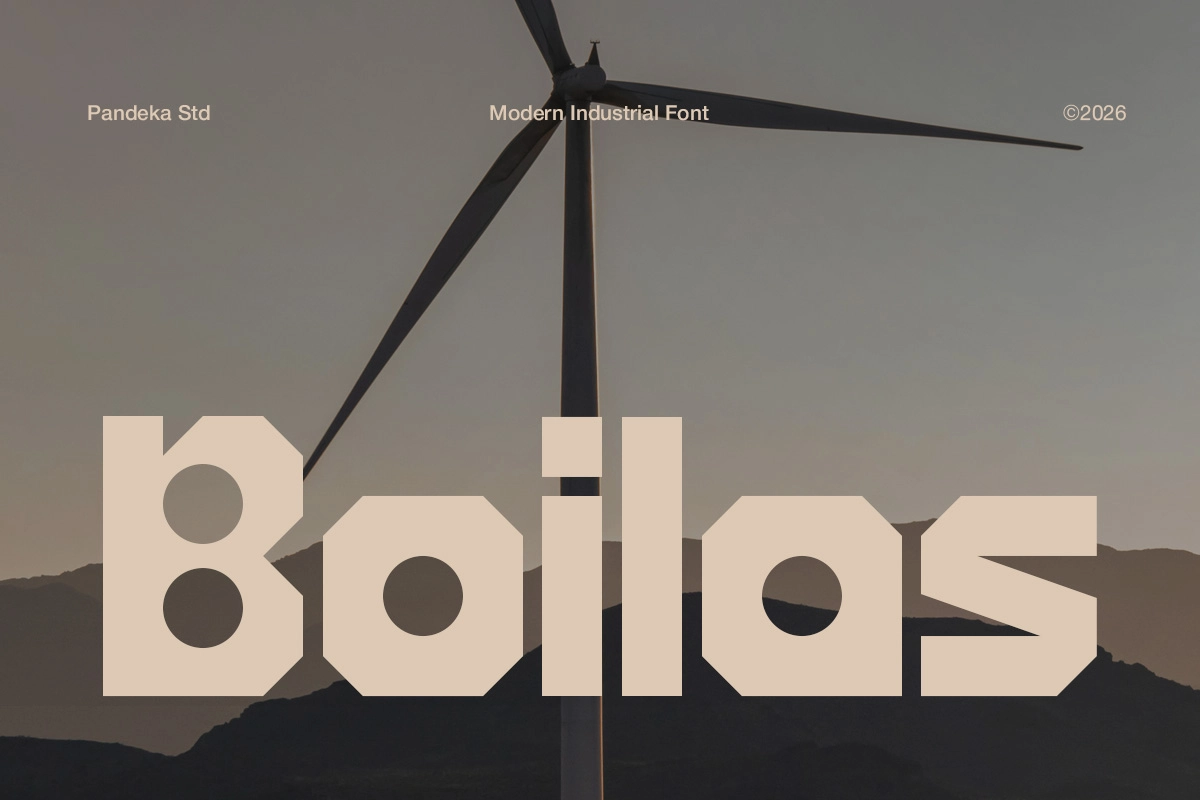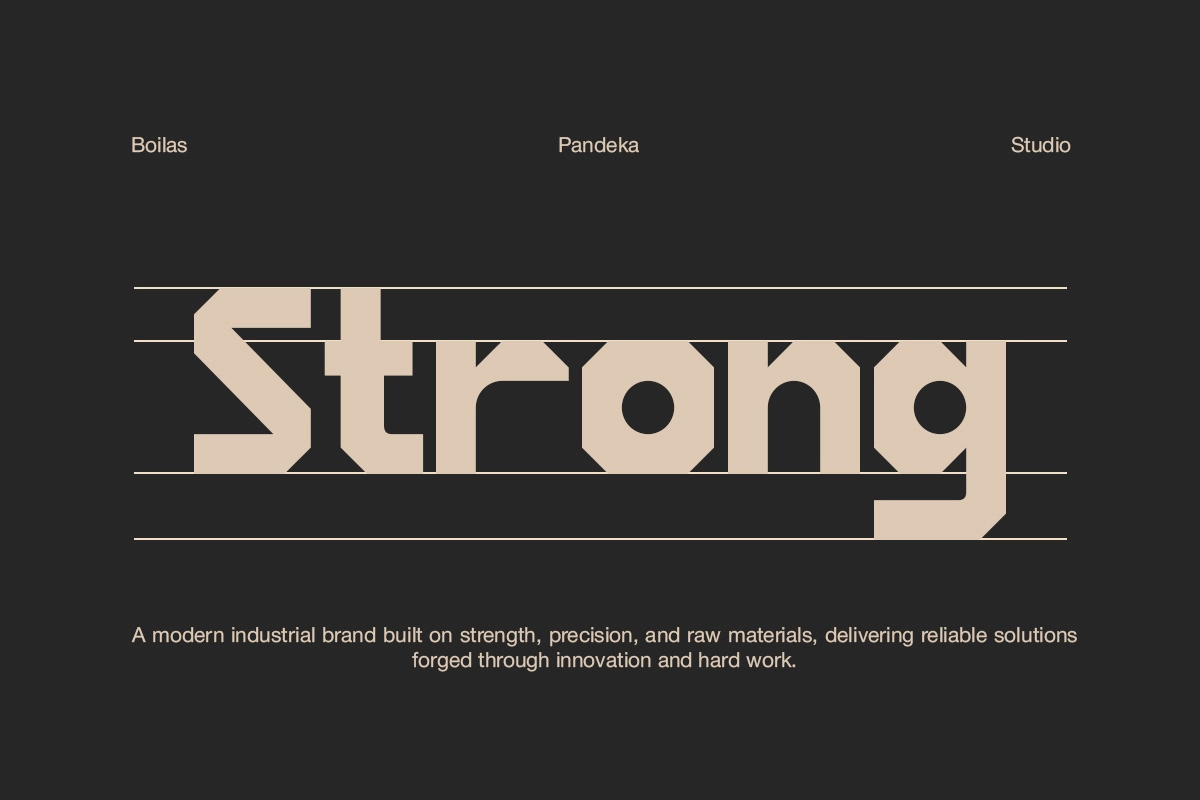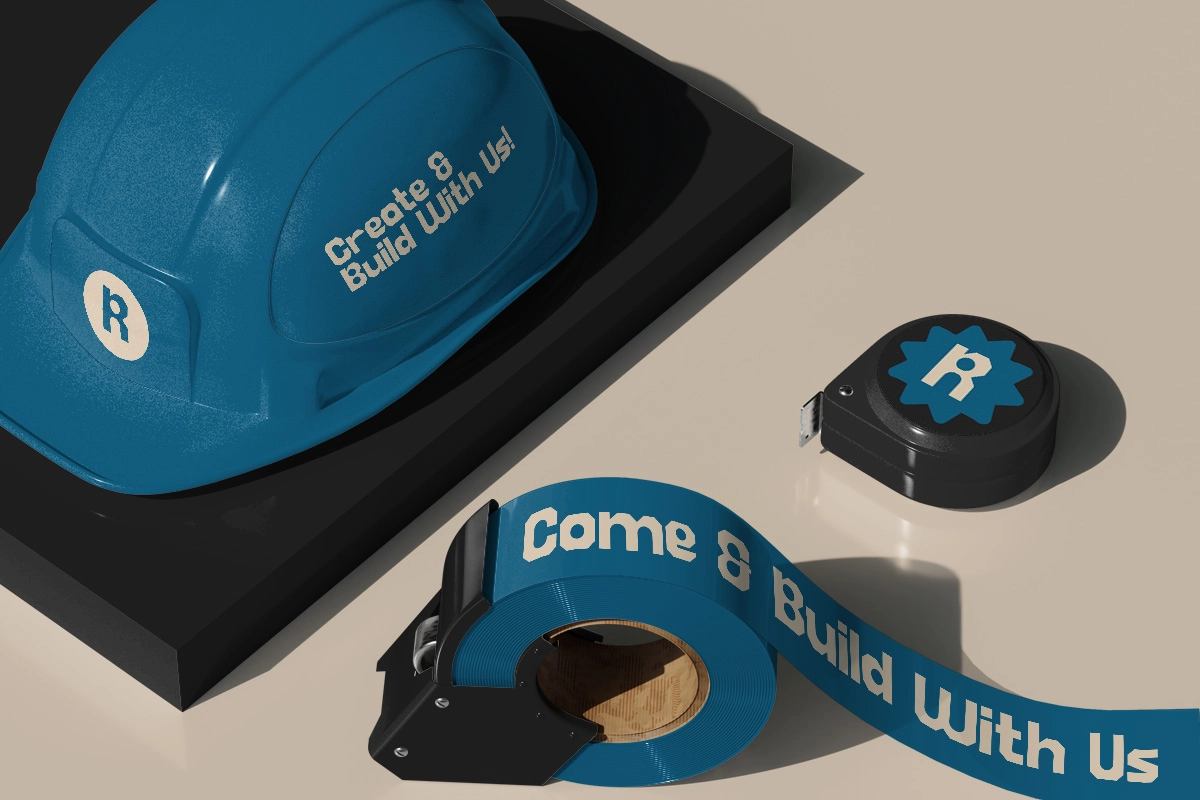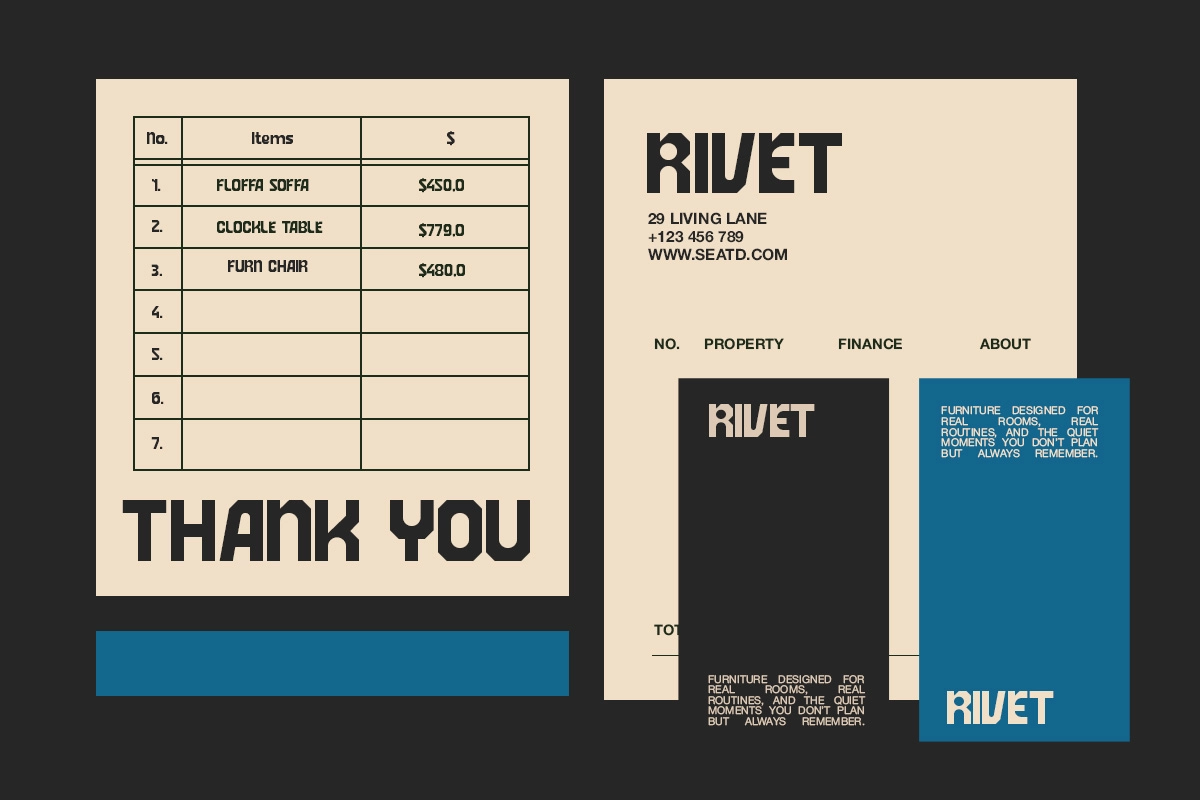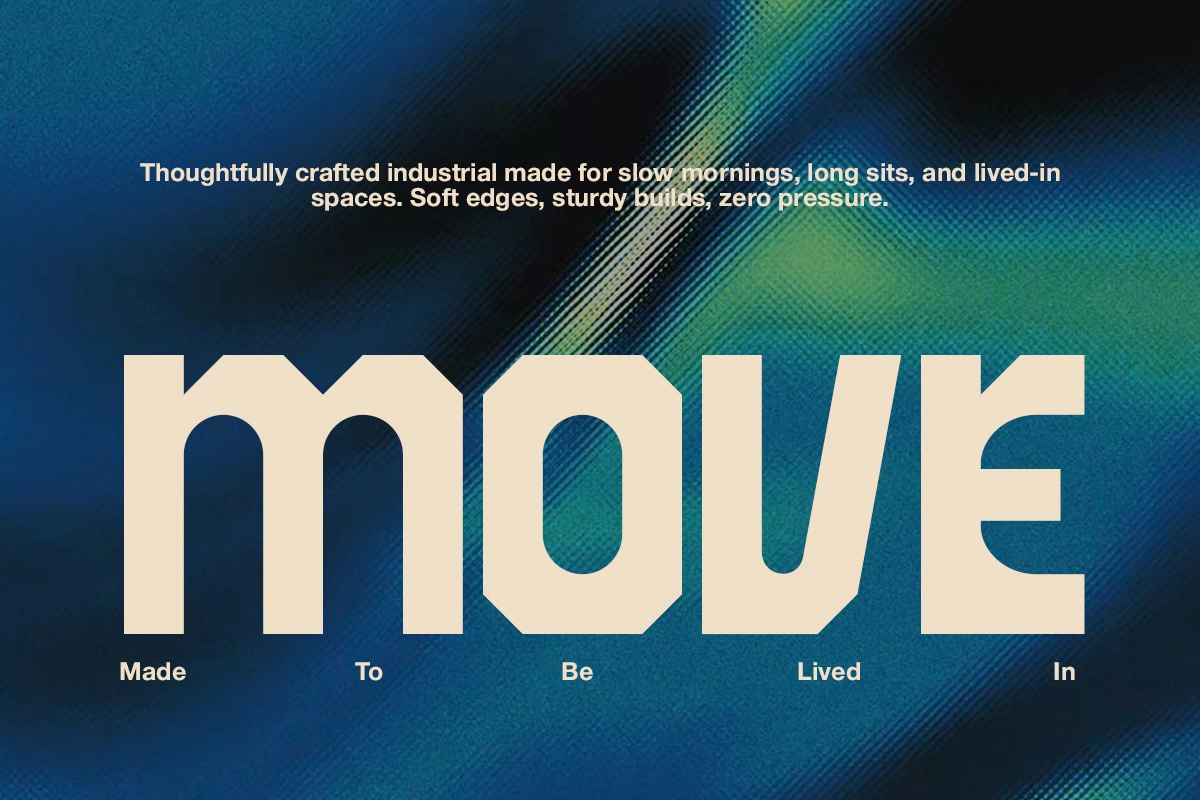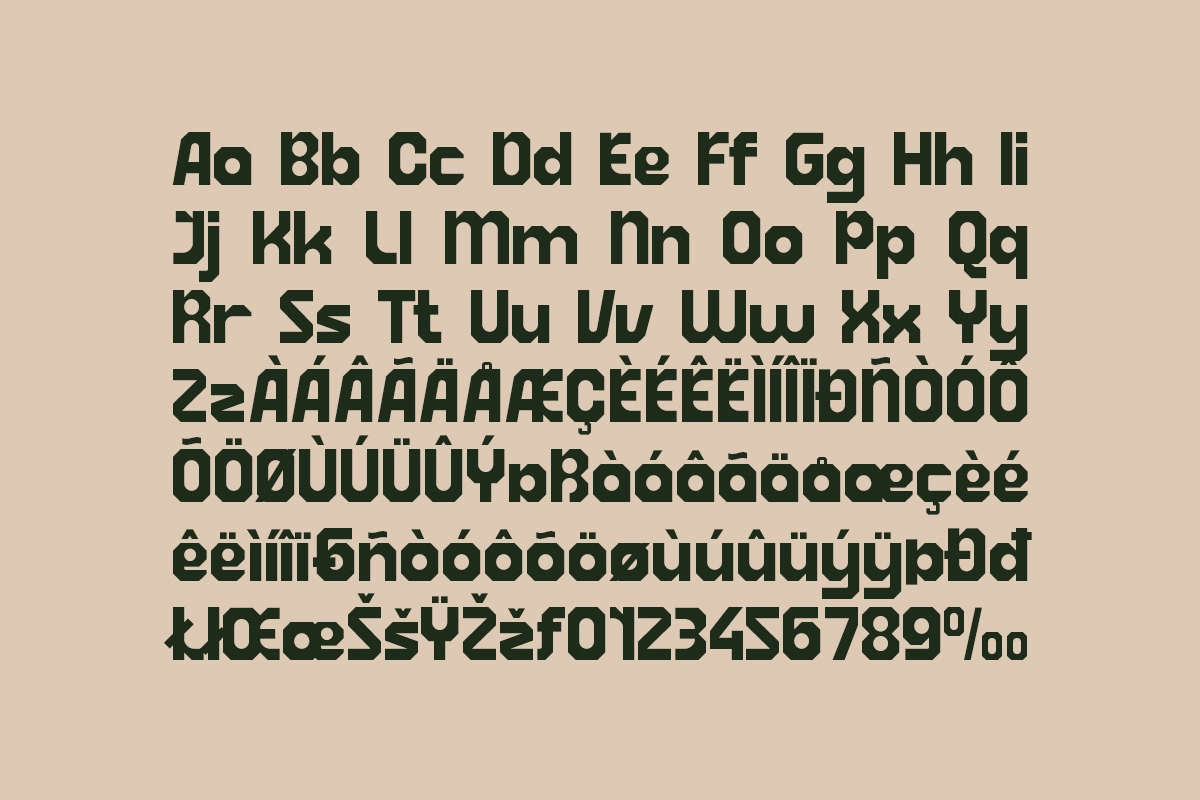
Boilas - Bold Geometric Display Font
Boilas is a bold geometric display font built on chamfered corners, thick slab strokes, and a tight, mechanical rhythm that reads like a steel nameplate. The counters are round and cut close, so every letter locks into a rigid, factory-stamped grid.
Boilas works best in short, heavy-set headlines where the blocky forms can dominate a layout instead of blending into it. Use it for industrial branding, construction and engineering identities, manufacturing signage, corporate stationery, conference and event graphics, packaging, workwear prints, product labels, and heavy poster headlines.
• Uppercase & lowercase;
• Numerals, punctuation & symbols;
• Multilingual support;